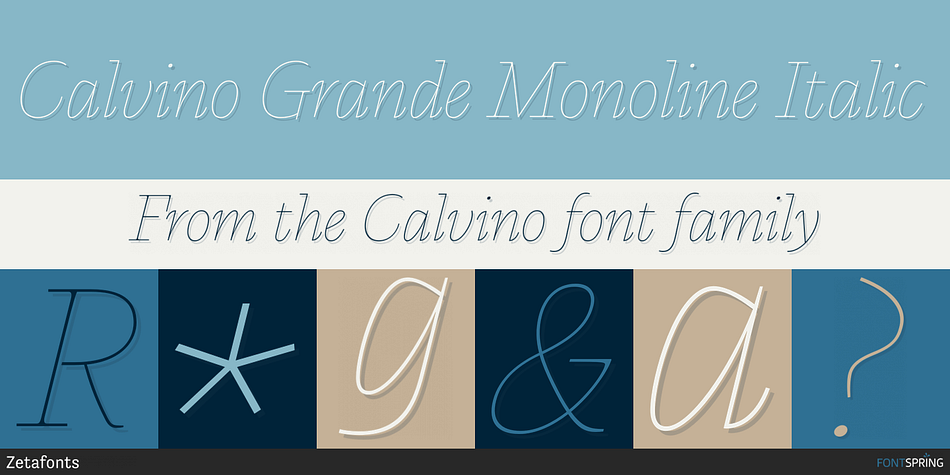
Calvino Grande Monoline Italic
Designed by Andrea Tartarelli, Calvino is a serif font family. This typeface has thirty-eight styles and was published by Zetafonts.
In designing the Calvino typeface family Andrea Tartarelli set himself the challenge to follow the principles expressed by the Italian writer Italo Calvino in his masterpiece Six memos for the next millenium. Exactitude and visibility are translated typographically through the reference to sixteen century garalde typography and its controlled, highly legible letterforms. To balance this formal rigour, lightness and quickness were added by letting the design be inspired by the calligraphic hand, following the lesson of Gudrun Zapf. The idea of multiplicity was kept central, developing Calvino in a range of weights encompassing both display and text use cases, and then expanding the design space with the inclusion of a display sub-family, Calvino Grande, to provide users with a full typographic palette to cover all editorial needs. Sharing the same formal structure, Calvino Grande sports condensed proportions, sharper details and tighter metrics. Both Calvino and Calvino Grande are complemented with a set of italic letterforms, with differences in design and slant to better work at different point size. All the 34 weights of the Calvino family come with a extended Latin and Cyrillic charset, covering over two hundred languages, and all equipped with a wide range of open type features including positional numerals, alternate forms, and stylistic sets. Four variable typefaces are also included in the full package, for any need of fine-tuning the typeface grade of weight.
• Suggested uses: Calvino aims to provide users with a full typography palette to cover all editorial needs. Perfect for contemporary branding and logo design, dynamic packaging and countless other projects.
• 38 styles: 9 weights + 9 italics, 2 different styles + 4 variable fonts.